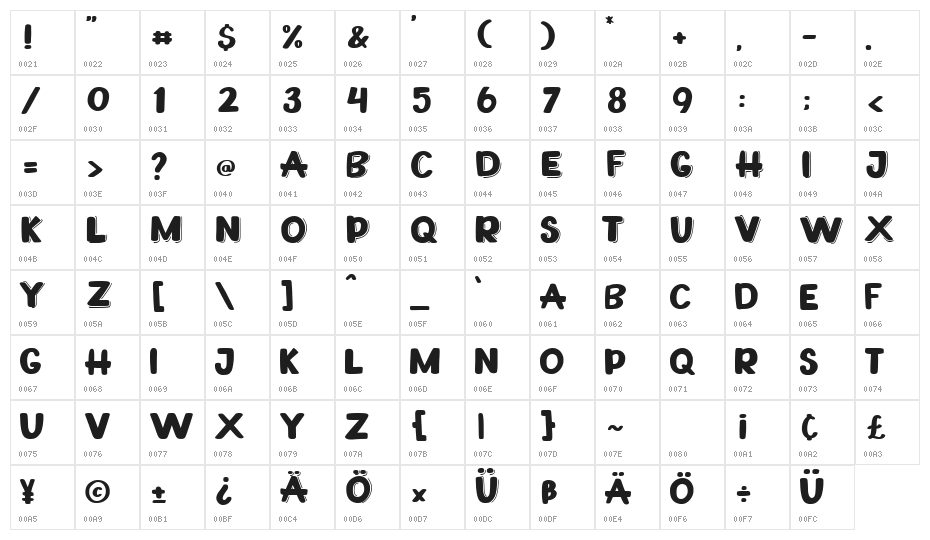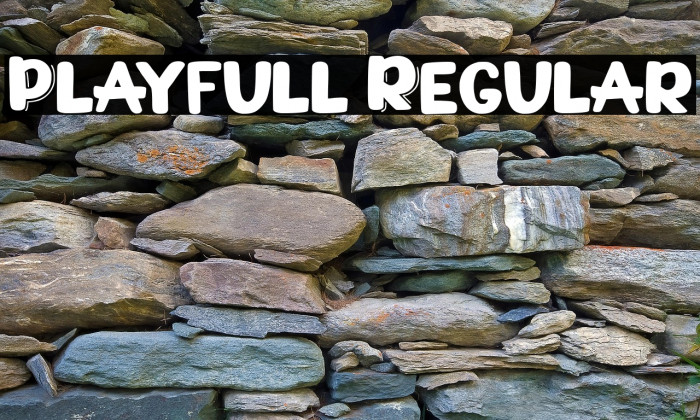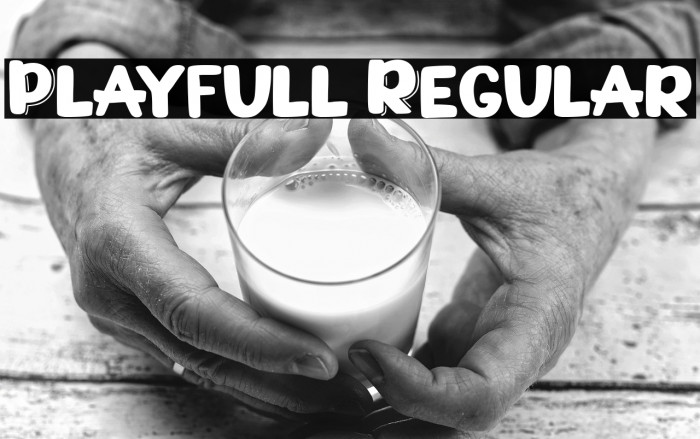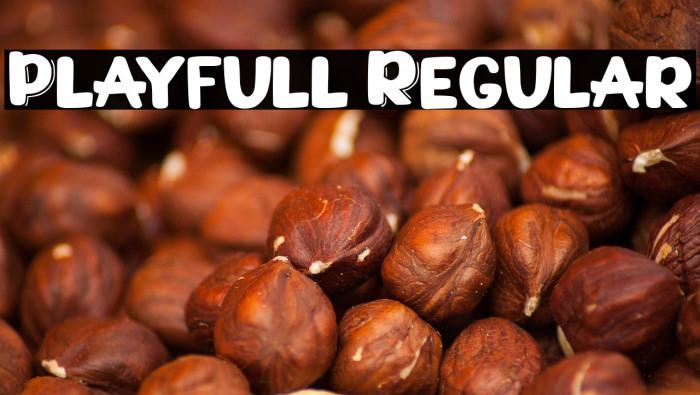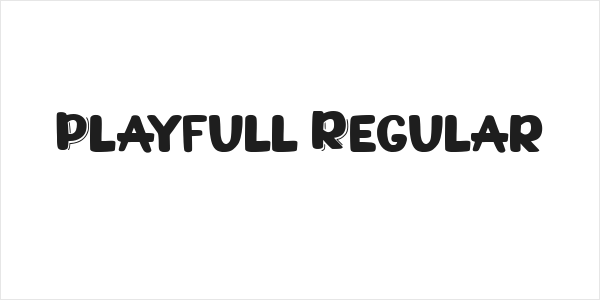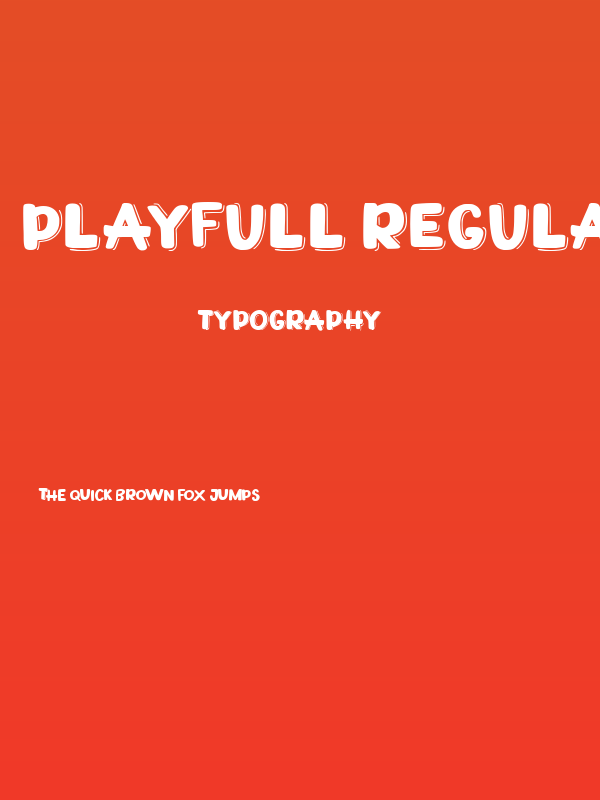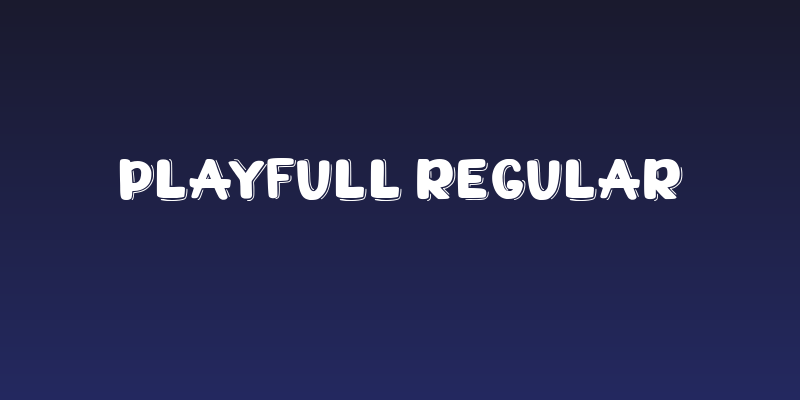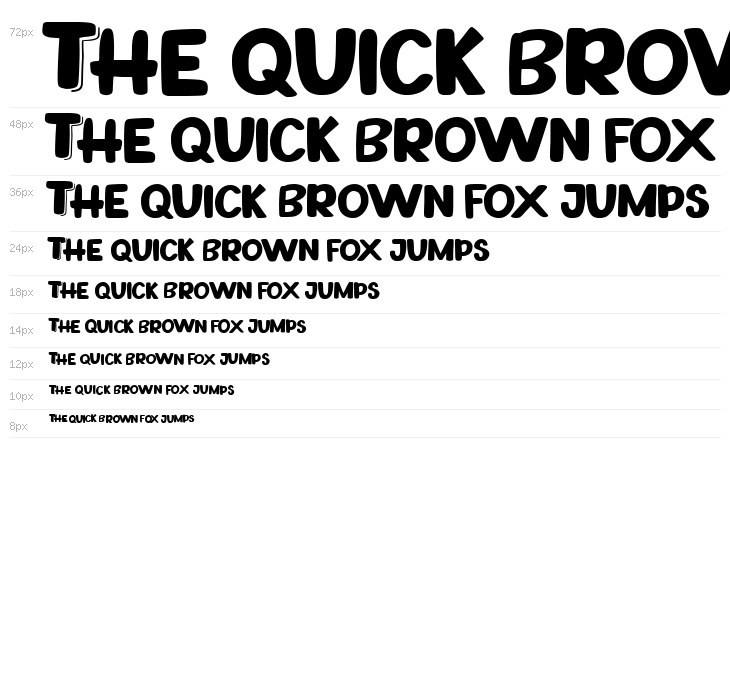
Playfull Regular Font
Playfull Regular Description
This font exudes a playful and bold character, featuring thick, rounded strokes that give it a friendly and approachable appearance. The letters are slightly irregular, adding to its whimsical charm. The uppercase and lowercase letters maintain a consistent style, with a slight tilt that enhances its dynamic feel. The numbers and special characters are designed to match the overall playful aesthetic, making it suitable for creative and informal projects. Its boldness ensures high readability, while the rounded edges soften its impact, making it ideal for children's books, playful branding, or any project that requires a touch of fun.
| Proposed Projects | Children's books, playful branding, creative posters, informal invitations. |